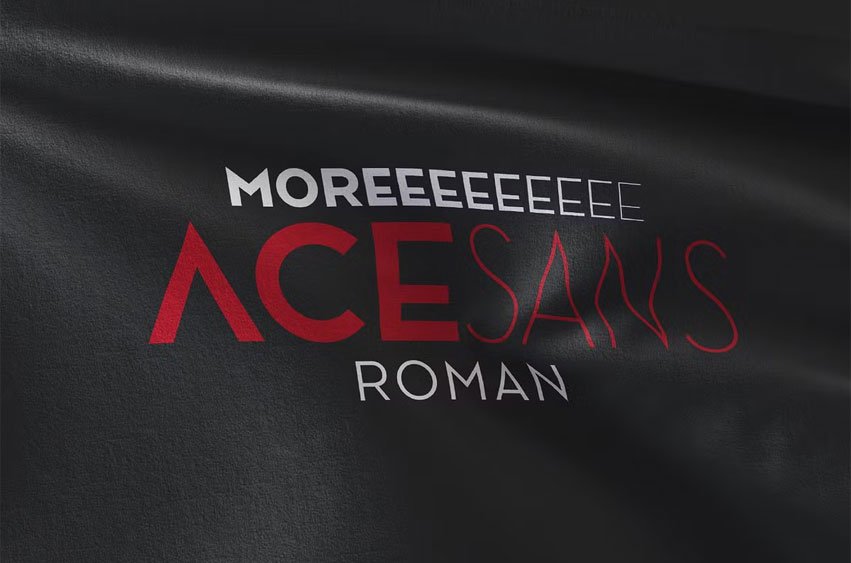
Ace Sans Roman Font
Ace Sans Roman Font is a modern and minimalist sans serif font family. The combination of minimal and geometric elements renders a modern design. Ace Sans is clean and modern caps, thereby creating more variability.
This is irreproachable sans serif to diversify your headlines, branding visual identity, poster, logo, magazines and etc.